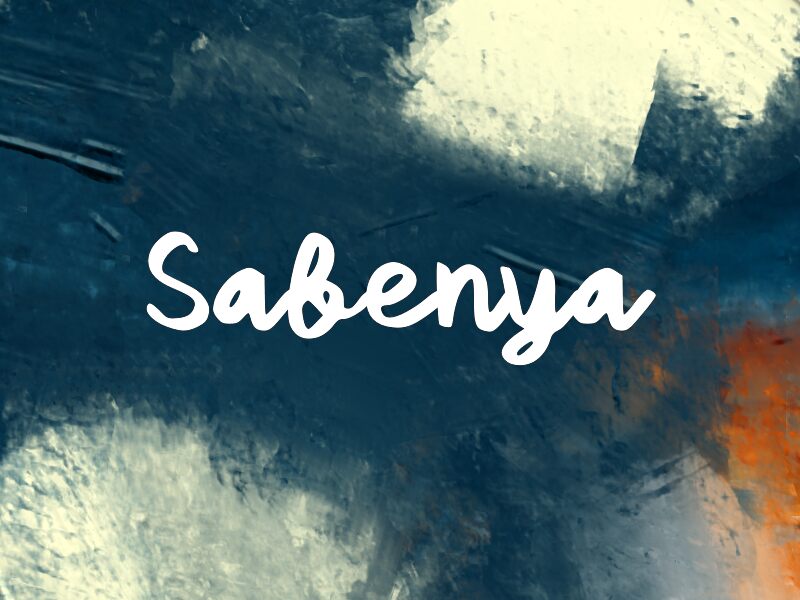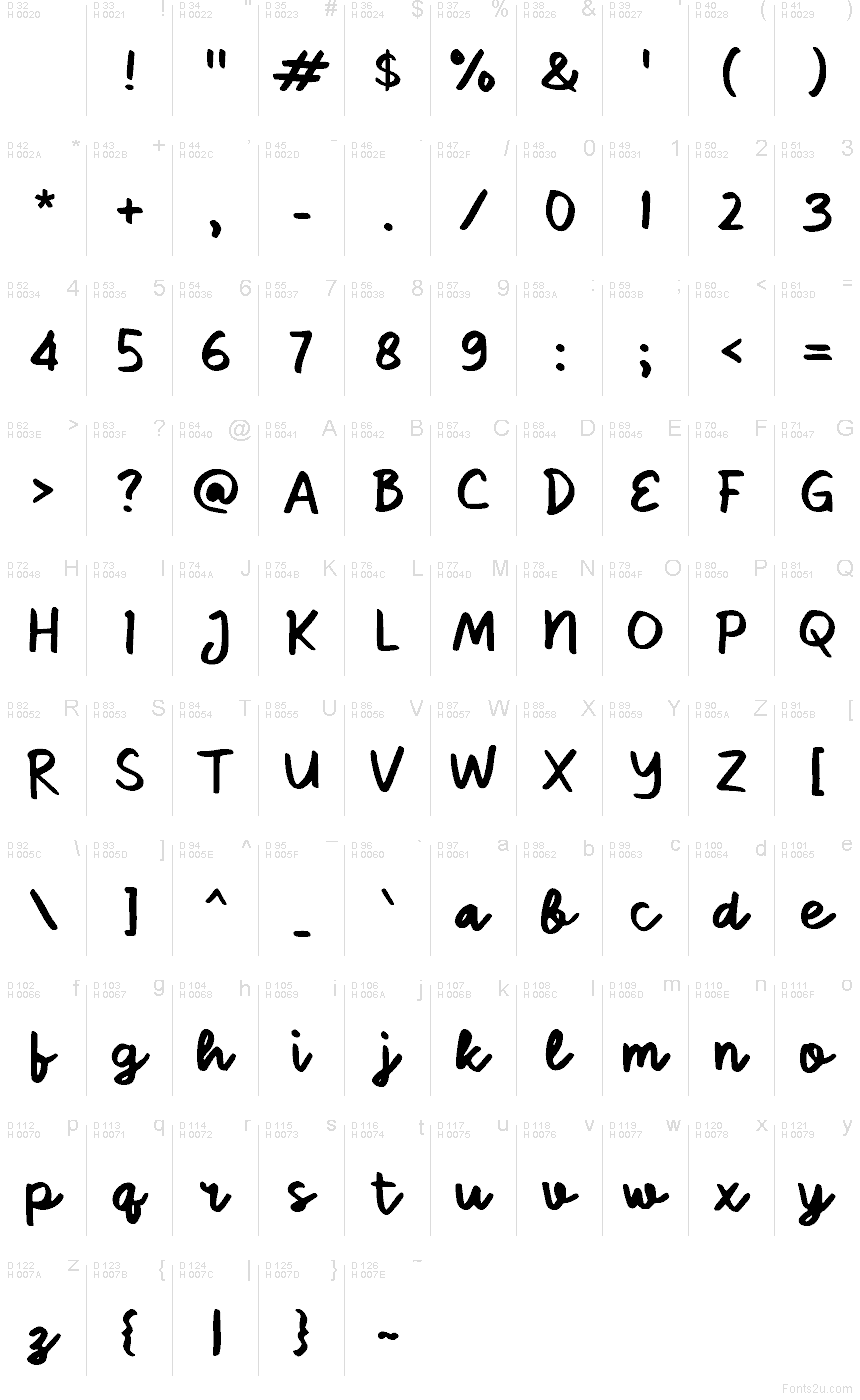
Sabenya
Sabenya font by wepfont.com is a free handwritten font that captures the feel of a bold marker gliding across paper. Its rounded strokes, steady rhythm, and slightly bouncy connections create a friendly, personal tone that still reads clearly at a glance. The ink-like texture gives it a cozy, human touch that feels more like a quick note from a friend than a stiff, digital script.
Using Sabenya, this free font shines on product packaging, social media graphics, quote posts, greeting cards, casual branding, blog headers, and invitations that aim for warmth over formality. It’s especially strong at larger sizes, where the thick strokes and texture have room to breathe. Pair this handwritten typeface with a clean sans serif for body text to keep layouts balanced and readable.